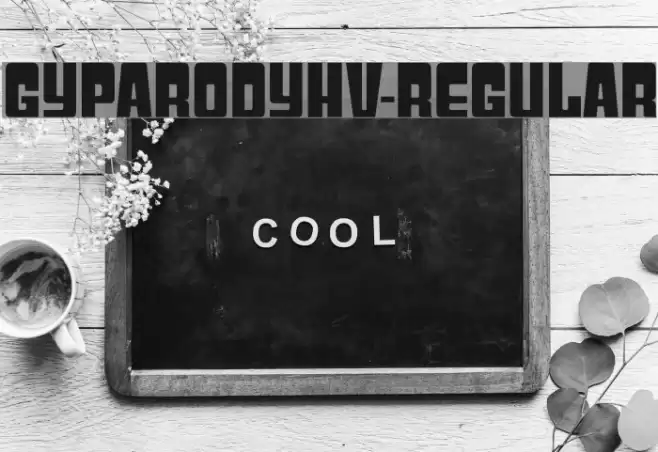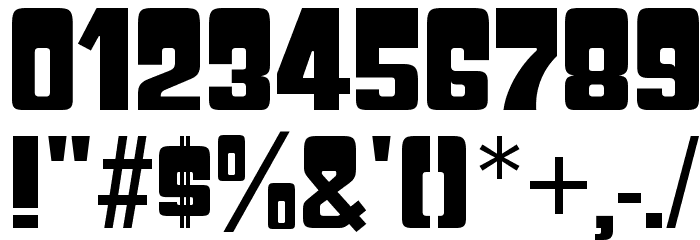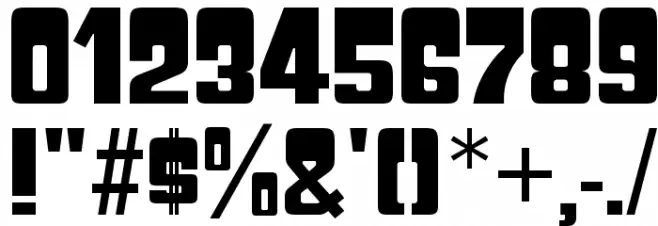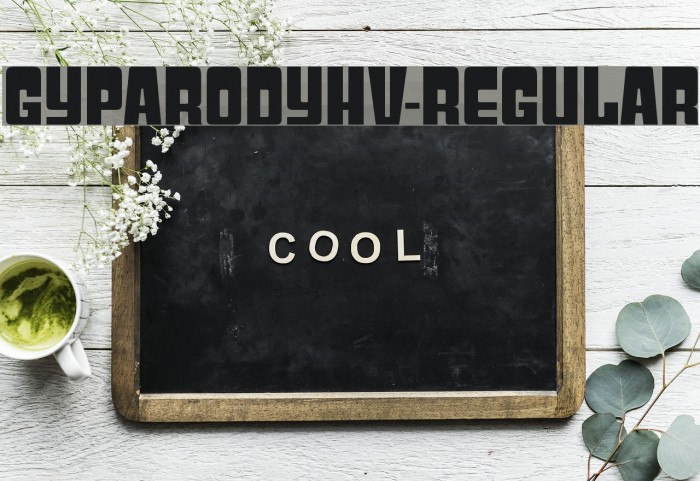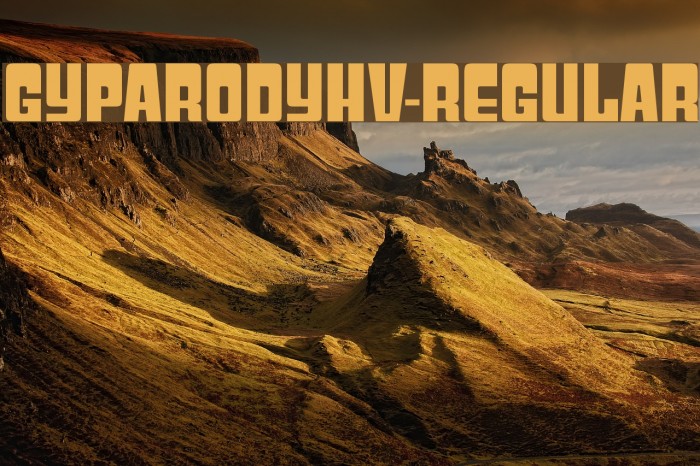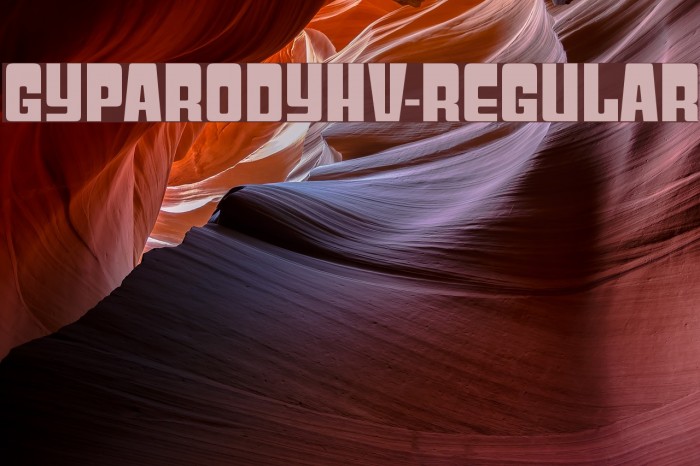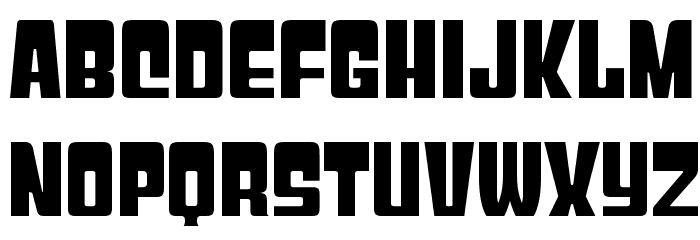
GyparodyHv-Regular Font
GyparodyHv-Regular Description
This font is a bold, impactful typeface with a strong presence. It features thick, block-like characters that convey a sense of strength and stability. The letters are uniformly wide, with minimal contrast between thick and thin strokes, giving it a monolithic appearance. The uppercase and lowercase characters are consistent in style, maintaining a cohesive look throughout. The numbers and special characters are equally bold, ensuring readability and emphasis. This typeface is ideal for making a statement, with its commanding and authoritative style.
A bold, impactful typeface with thick, block-like characters from Uncategorized fonts.
- Proposed Projects: Ideal for posters, headlines, branding, and any design that requires a strong visual impact.